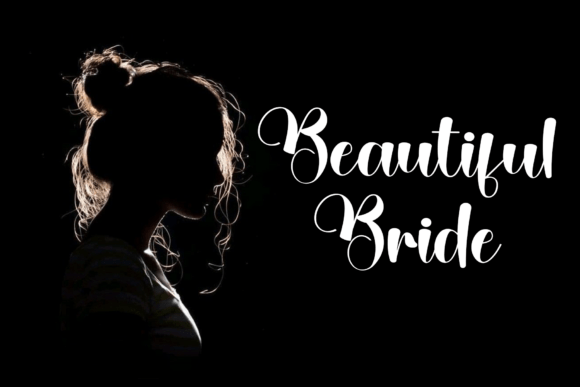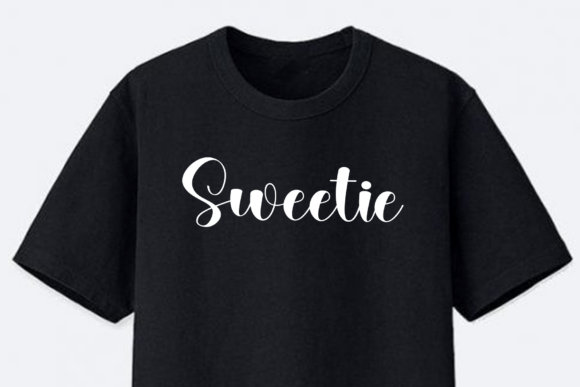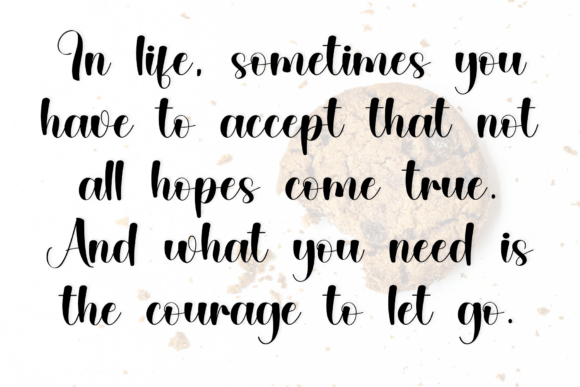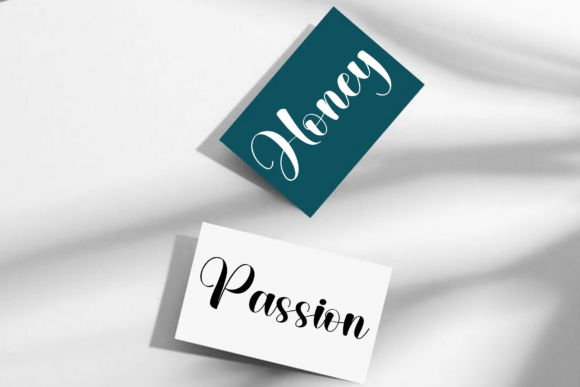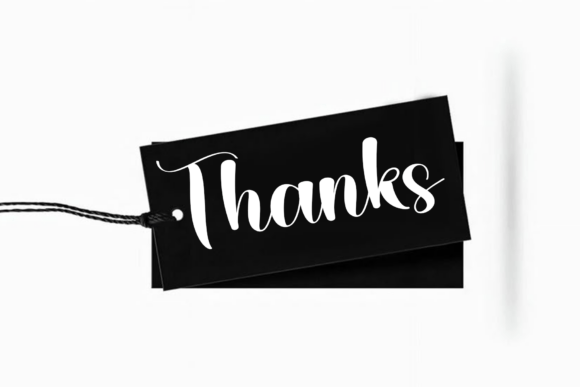
Discovering the Perfect Blend of Freshness and Elegance
Who hasn’t had that moment when you stumble upon a font that just clicks? You know, that instant when everything falls into place, and you can envision your design project taking shape. For me, it was when I discovered the Biscuit Font – a charming handwritten font that embodies the essence of casual elegance. Its fluid strokes and organic lines transport me to a laid-back world where creativity knows no bounds.
As a designer, I can attest that the Biscuit Font is a valuable addition to any toolkit. Whether you’re crafting a brand identity, designing an invitation, or creating social media graphics, this font adds a touch of warmth and personality that’s hard to replicate. Its versatility makes it an ideal choice for various design projects, and I’m excited to share its secrets with you.
Biscuit Font Key Features
- Font Size: The font family includes 6 weights (Thin, Light, Regular, Medium, Bold, Black) and 3 styles (Italic, Oblique, Regular), providing flexibility for various design applications.
- Unique Characteristics: The font features a distinctive, hand-drawn design with subtle texture and imperfections, giving it a warm, organic feel.
- Character Set: Biscuit Font includes a comprehensive character set, covering Latin, Cyrillic, and Greek alphabets, as well as a range of punctuation and symbol glyphs.
Biscuit Font Review
I recently had the chance to work with the Biscuit Font, and I must say it’s a unique and interesting typeface. ✨ One thing that immediately stood out to me was the font’s friendly and approachable feel. The rounded edges and soft lines give it a warm and inviting quality that’s perfect for projects that need a touch of warmth.
Another thing I liked about Biscuit is its versatility. ✨ It works well in a variety of contexts, from headings and titles to body text and even logos. The font also comes in a range of weights, from light to bold, which gives you a lot of flexibility when it comes to styling your content.
- ⚠️ The font may not be suitable for projects that require a more formal or professional tone. The friendly feel of Biscuit can sometimes come across as too casual or playful.
- ⚠️ The font’s rounded edges can sometimes make it difficult to read at very small sizes or in low-resolution environments.
Overall, I think the Biscuit Font is a great choice for projects that need a touch of warmth and personality. While it may not be the best fit for every project, it’s definitely worth considering if you’re looking for a friendly and approachable typeface.
Tip: Use the Biscuit Font to add a touch of whimsy to your designs, especially for titles and headings.
Tip: Use the Biscuit Font to create custom illustrations and graphics with a playful feel.
Tip: Use the Biscuit Font to add a touch of personality to your presentations and documents.
The Biscuit Font is perfect for:
- Children’s products and packaging
- Playful and whimsical designs
Remember to use the Biscuit Font in moderation, as it can be quite playful and may not be suitable for all types of designs.